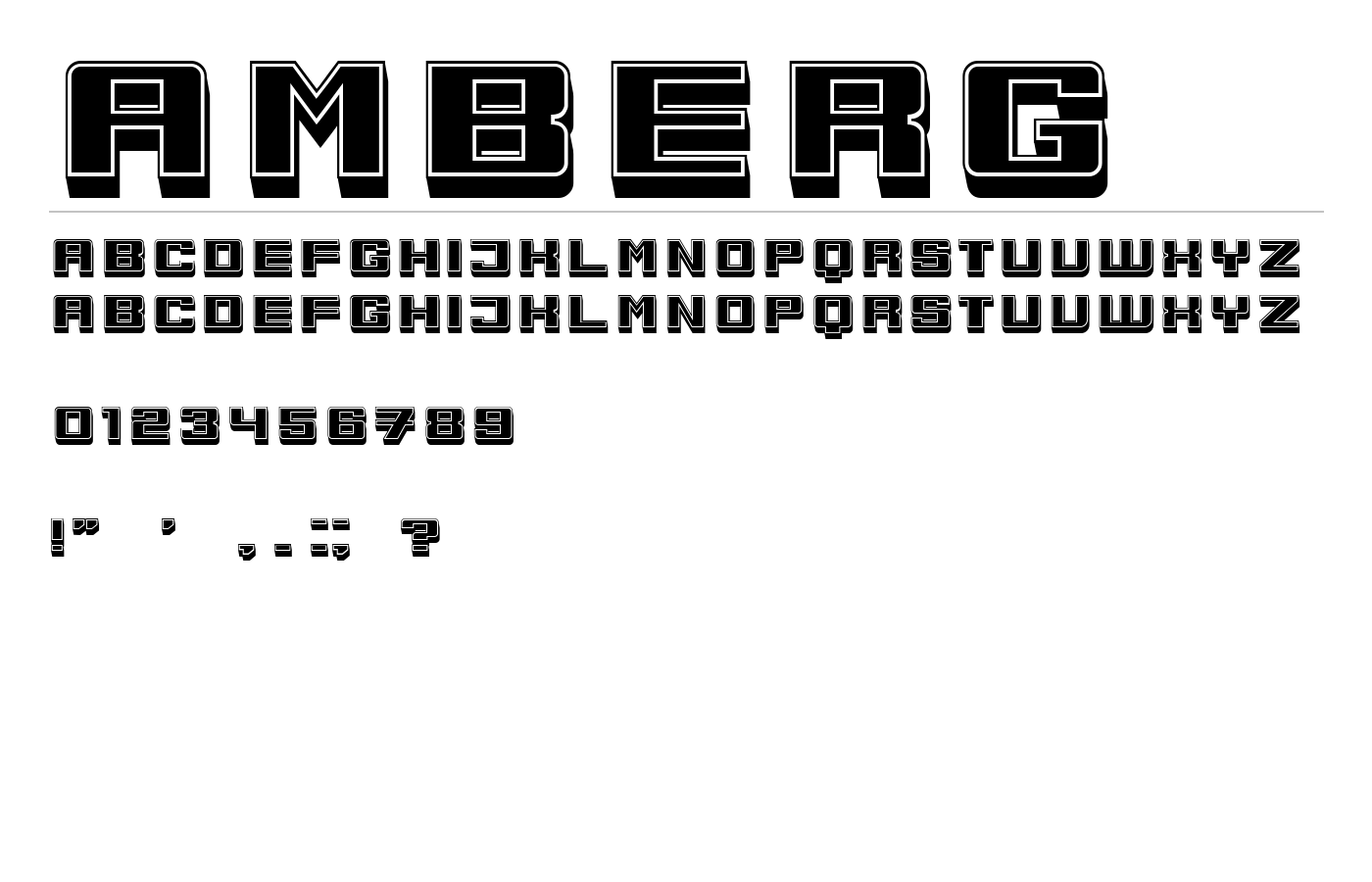
Amberg is a bold, geometric sans serif font with a distinctive 3D shadow effect that adds depth and a dynamic feel to its blocky, all-caps letterforms. Its strong, square shapes and high contrast between solid fills and outlines give it a bold, retro-futuristic personality, ideal for attention-grabbing headlines, logos, and vintage-inspired designs. This font works best in display contexts where its unique layered style can shine, making it perfect for posters, branding, and packaging that seek a striking and playful aesthetic.
Amberg Font
About Amberg Font